Cool Chalk Board Fonts 2022
Cool Chalk Board Fonts 2022. Chalkboard fonts are a classic font type that evokes ideas of school days long gone and quaint cafe menu boards. Every font is free to download!
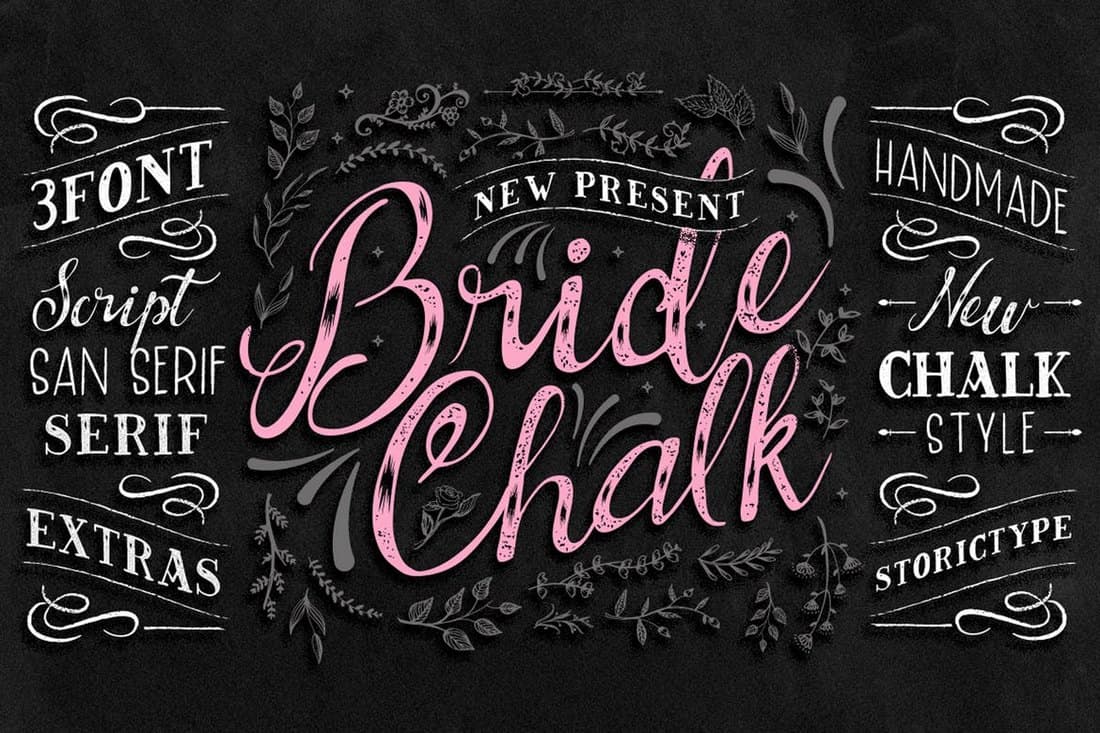
Great for headings, it makes a statement with its rough. Griffon is a handwritten chalkboard, pencil or crayon font for an instant handmade feel in your work. Looking for chalk handwriting fonts?
Griffon Is A Handwritten Chalkboard, Pencil Or Crayon Font For An Instant Handmade Feel In Your Work.
More Condensed Than Most Fonts Of This Style, Chalky Can Be.
Chalk fonts have letters that look like they were drawn or written with a stick of chalk. Ad download millions of fonts, graphic assets, actions, icons & more! Click to find the best 61 free fonts in the chalkboard handwriting style.
Great For Headings, It Makes A Statement With Its Rough.
But not all chalkboard fonts are alike. Chalk is popular with kids, who use it to write on sidewalks. Tuck shop chalkboard lettering font.
Steady Rain Featuring Upper And Lower Case.
Looking for chalk chalkboard fonts? All the creative assets you need under one subscription! Chalkboard fonts are a classic font type that evokes ideas of school days long gone and quaint cafe menu boards.
The Font Is Reminiscent Of School Chalkboards And Would Work Great.